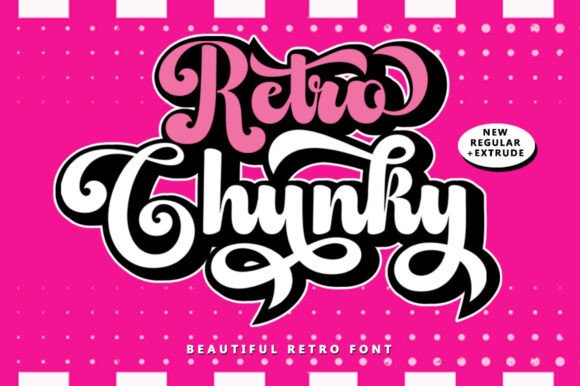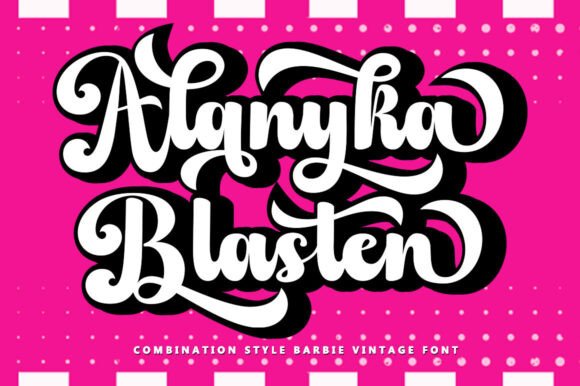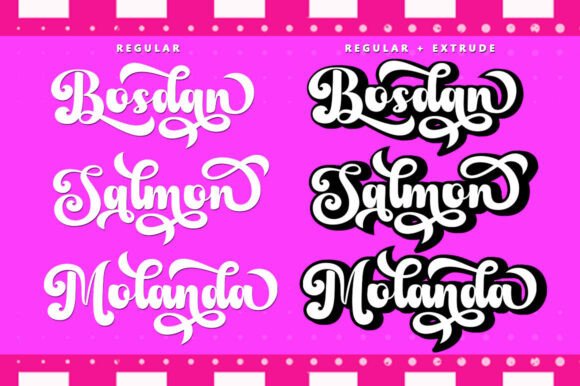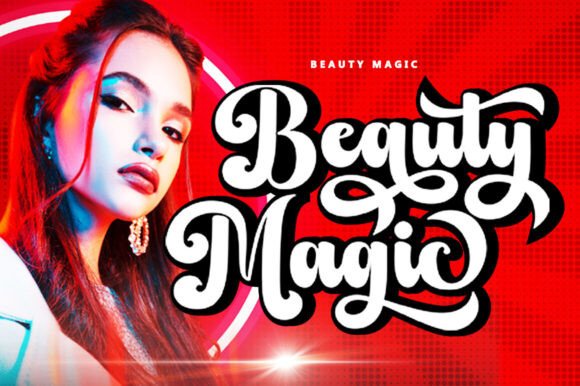
Retro Chunky Font
About the Retro Chunky Font
Presenting Retro Chunky Font, a unique and stylish typeface that will make your work stand out. Retro Chunky is a Display Script and Retro font. It is bold, confident and dynamic and can add a lot of nostalgic character to your designs. This retro style is perfect to apply in various formal forms such as invitations, labels, restaurant menus, logos, fashion, makeup, stationery, novels, magazines, books, greeting/wedding cards, packaging, labels or any type of advertising purposes and you will definitely impress your audience.
Retro Chunky excels as a display font for headlines, logos, and short, impactful text on packaging or posters. Its bold nature commands attention, making it ideal for projects needing a strong visual presence. However, its chunky design and script style are less suitable for body text or UI elements; legibility suffers at smaller sizes and in extended passages.
This font’s personality is confident and nostalgic, lending itself well to brands with a vintage or retro aesthetic, particularly in the food, fashion, or entertainment industries. Pair it with a clean sans-serif like Montserrat for a balanced contrast, or a more geometric sans-serif like Futura for a modern twist. For a touch of elegance, consider pairing it with a delicate serif like Garamond.
Avoid using Retro Chunky for applications requiring high readability at small sizes, such as website body copy or long-form publications. Its strength lies in its visual impact, not its versatility across diverse design contexts.
Retro Chunky Font Usage Examples
Retro Chunky Font Example